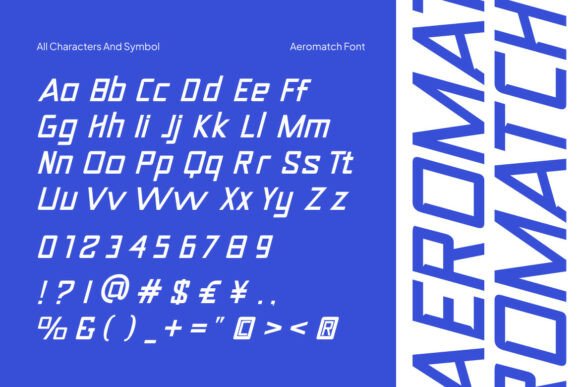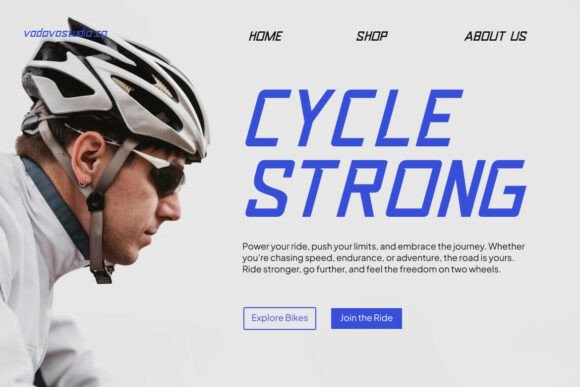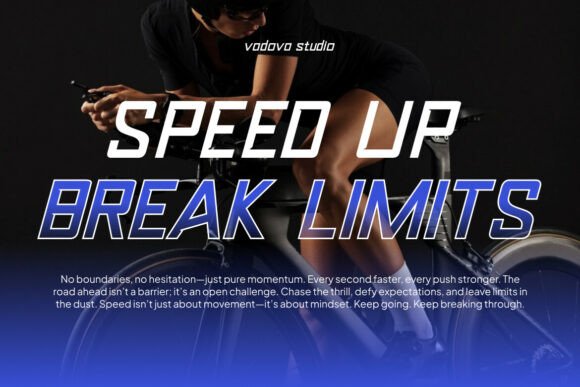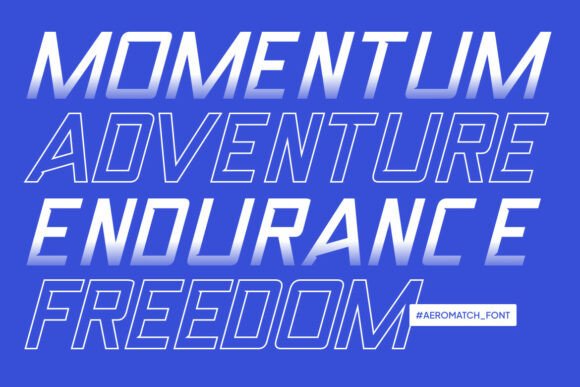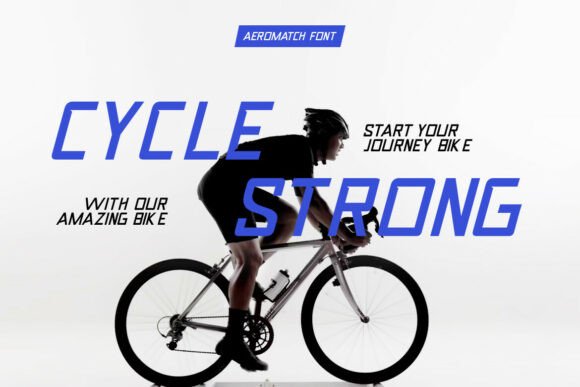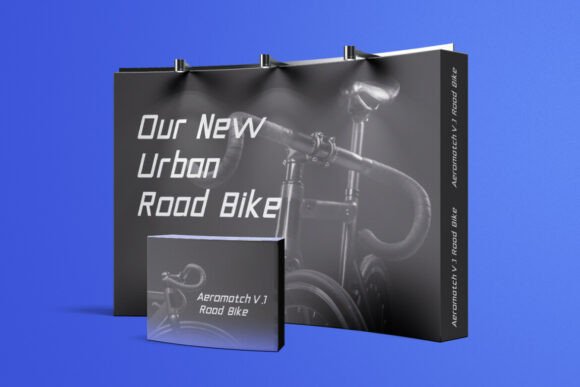
Unleash the Power of Design with the Aeromatch Font
As a designer, you’ve been there – staring at a blank canvas, trying to capture the essence of a bold sports brand or energize a fitness campaign. The right font can be the spark that ignites a design, elevating it from mere visuals to a powerful statement. And that’s where the Aeromatch Font comes in – a game-changing, high-impact typeface designed to take your sports branding to the next level.
With its sharp, dynamic letterforms and confident presence, the Aeromatch Font is the perfect solution for sports teams, gym promotions, and fitness apparel. Its strong, masculine look makes it ideal for logotypes, magazine headlines, and dynamic display use across digital and print platforms. By incorporating the Aeromatch Font into your designs, you’ll bring energy and power to every project, giving them a competitive edge that stands out in a crowded market.
Aeromatch Font Key Features
- Font Family: Aeromatch is a unique sans-serif font with a modern and aerodynamic feel.
- Unique Characteristics: Features a distinctive blend of geometric and organic shapes, with a focus on legibility and readability.
Aeromatch Font Review
As a designer, I’ve had the chance to work with the Aeromatch Font, and I’m here to give you the lowdown. ✨
- ✨ Unique aesthetic: Aeromatch Font has a distinct, modern feel that sets it apart from other sans-serif fonts.
- ✨ Excellent legibility: The font is highly readable, making it perfect for body text and headlines.
- ✨ High versatility: Aeromatch Font works well for a wide range of projects, from digital interfaces to print materials.
- ⚠️ Limited language support: Aeromatch Font only includes a limited set of characters, which may not be suitable for multilingual projects.
- ⚠️ Not ideal for small text: The font can appear blurry when used in small sizes, which may be a concern for certain applications.
Aeromatch Font is a solid choice for designers looking for a modern, legible sans-serif font. While it has its limitations, it’s a great option for projects where a clean, minimalist aesthetic is desired. With some careful consideration of its limitations, I’d definitely recommend giving it a try.
Tips for Getting the Most Out of Aeromatch Font
Aeromatch Font is ideal for creating eye-catching headings, titles, and logos. To get the most out of it, use it sparingly and in bold, uppercase letters. You can also experiment with different font sizes and styles to create a unique visual effect.
Alternatives to Aeromatch Font
Montserrat is a modern sans-serif font that is highly legible and versatile. It is ideal for use in digital products, logos, and branding materials. Montserrat has a similar geometric feel to Aeromatch Font but with a more minimalist approach.
Comparison: Montserrat has a more condensed feel and is better suited for digital use, while Aeromatch Font has a more rounded feel and is better suited for print materials.
Lato is a sans-serif font that is highly readable and versatile. It is ideal for use in digital products, logos, and branding materials. Lato has a similar feel to Aeromatch Font but with a more elegant and refined approach.
Comparison: Lato has a more rounded feel and is better suited for digital use, while Aeromatch Font has a more geometric feel and is better suited for print materials.
Open Sans is a modern sans-serif font that is highly legible and versatile. It is ideal for use in digital products, logos, and branding materials. Open Sans has a similar feel to Aeromatch Font but with a more open and airy approach.